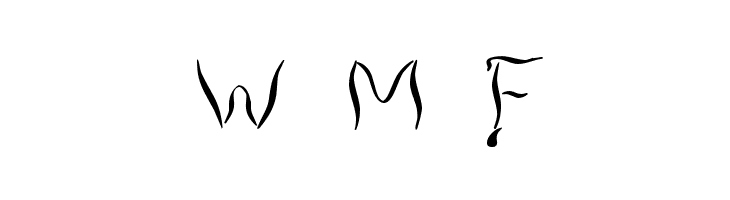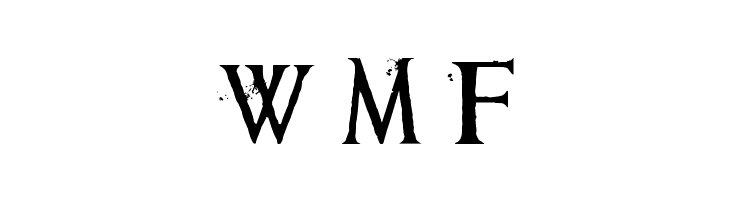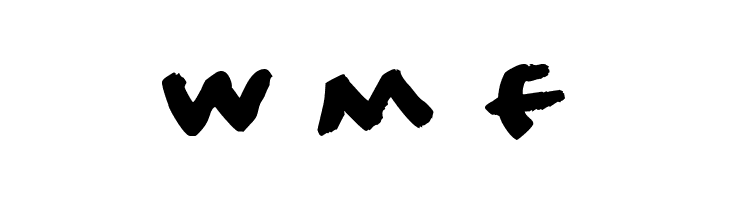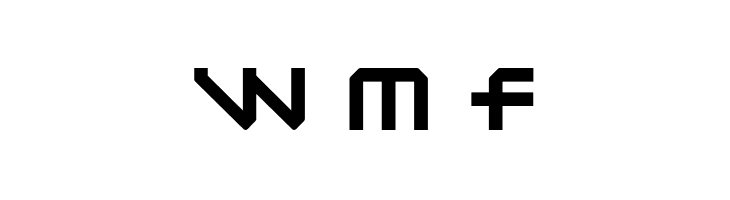
A decorative font with a flowing, organic style and medium contrast.
A distressed serif font with a vintage, grunge aesthetic.
A bold, expressive handwritten font with brush-like strokes.
A futuristic, geometric font with angular, blocky letterforms.
A bold, decorative font with a playful, textured design and italicized slant.
A bold, brush-textured font with a rugged and dynamic style.
A bold, rounded, and playful font with a hand-drawn appearance.
A playful, hand-drawn font with rounded, whimsical characters.
A graceful cursive font with elegant, flowing strokes and medium contrast.
A classic serif font with an elegant italic style and medium contrast.